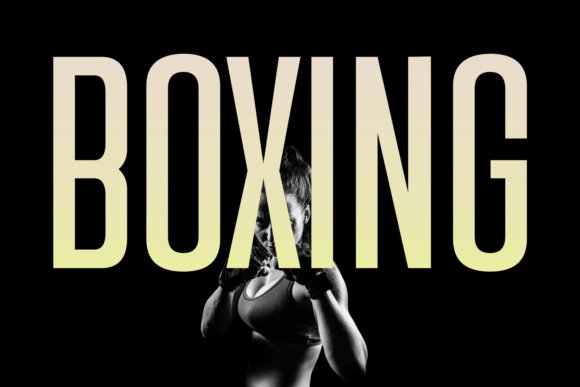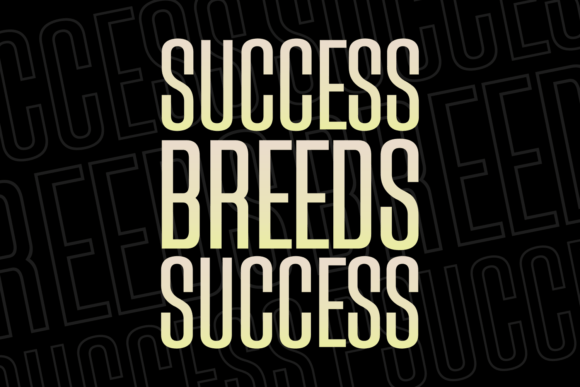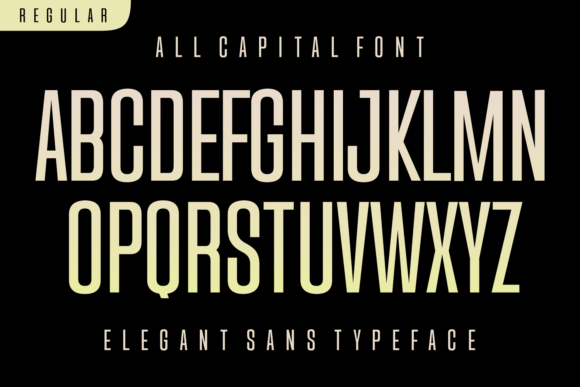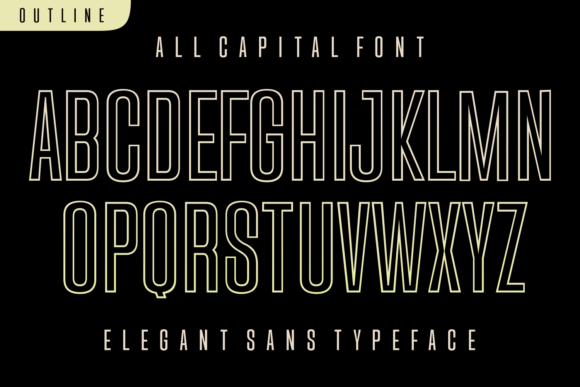
Unleashing the Power of Bosku Font: A Designer’s Delight
I’ll never forget the time I was working on a project, pouring my heart and soul into creating the perfect poster. But, as I was about to finalize the design, I realized that my chosen font just wasn’t cutting it. The client wanted something fresh, modern, and versatile. That’s when I stumbled upon Bosku Font, and my design woes disappeared instantly! ✨
In this article, I’ll share my journey with Bosku, an incredible sans-serif font that’s taken my designs to the next level. Whether you’re a seasoned designer or a creative hobbyist, you’ll love the flexibility and charm that Bosku brings to the table.
A Comprehensive Review of Bosku Font
What I Love About Bosku Font
• ✅ Versatility: Bosku’s sleek design and wide range of applications make it perfect for various projects, from dynamic headlines to striking magazines.
• ✨ Multilingual Support: With its comprehensive array of Eastern European glyphs, Bosku accommodates multilingual exchanges, making it a fantastic choice for global brands.
• ✅ Exceptional Charm: Bosku’s unique contour and stroke add an irresistible allure to every design, setting it apart from other fonts.
• ✅ Regular and Outline Variations: The font’s dual variations offer endless possibilities for creative experimentation.
While Bosku is an amazing font, there are a few minor things to keep in mind: 🤔
• ⚠️ Glyph Overload: With so many glyphs to choose from, it’s easy to get overwhelmed. Take some time to explore the font’s features and plan your design accordingly.
• ⚠️ Pairing Challenges: As with any font, finding the perfect pairing can be tricky. Experiment with different combinations to find the one that works best for your project.
The Story Behind Bosku Font
Bosku was crafted with an international design perspective, aiming to create a font that would accommodate the diverse needs of designers worldwide. The font’s creator, a talented type designer, drew inspiration from modern sans-serif fonts and infused Bosku with a unique charm. The result is a versatile font that’s both elegant and bold.
Q: What type of projects is Bosku suitable for?
Bosku is perfect for a wide range of projects, including dynamic headlines, posters, magazines, and more. Its versatility makes it an excellent choice for various design applications.